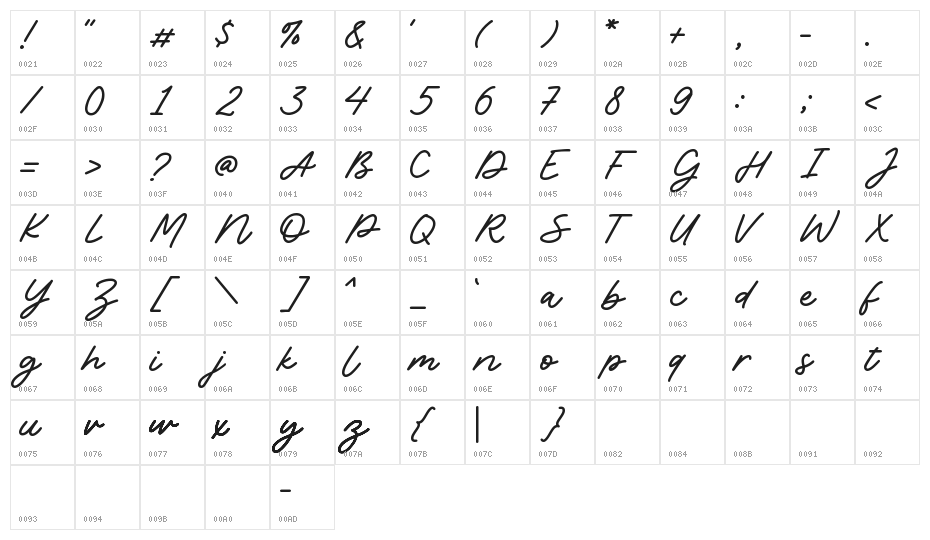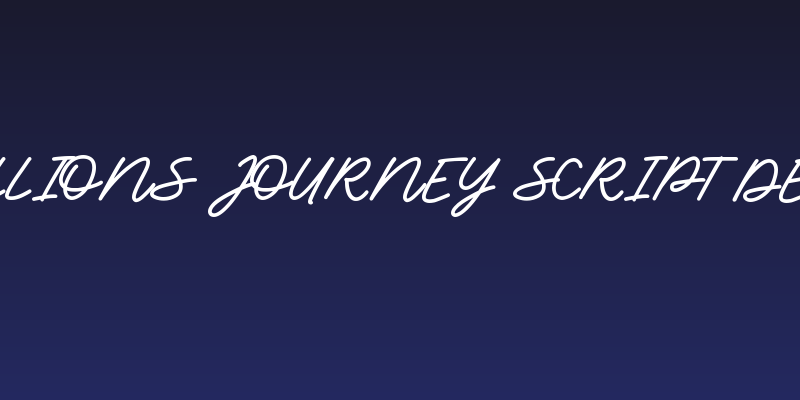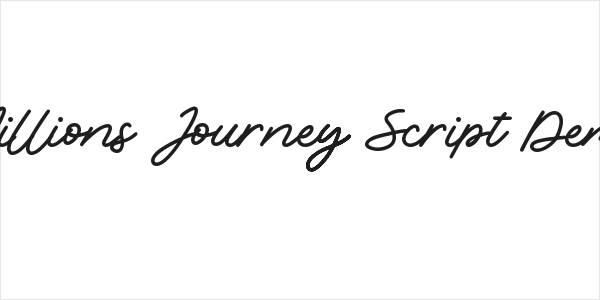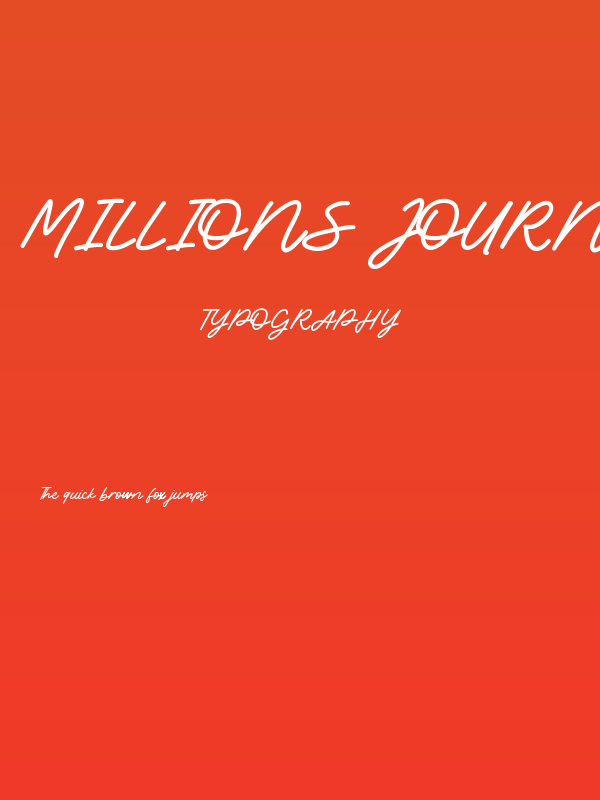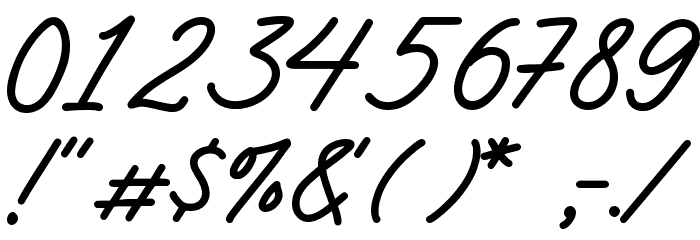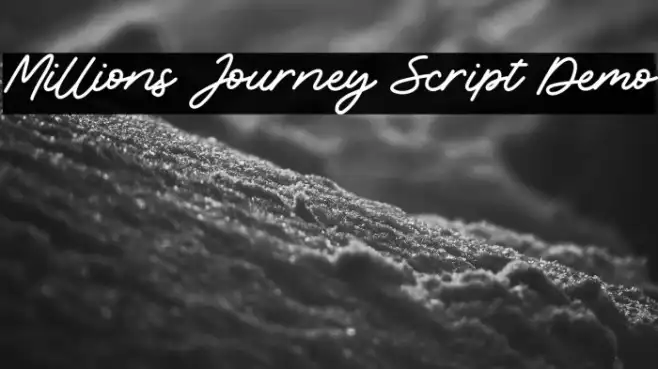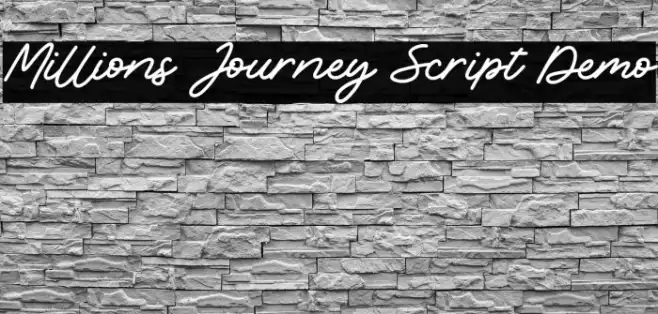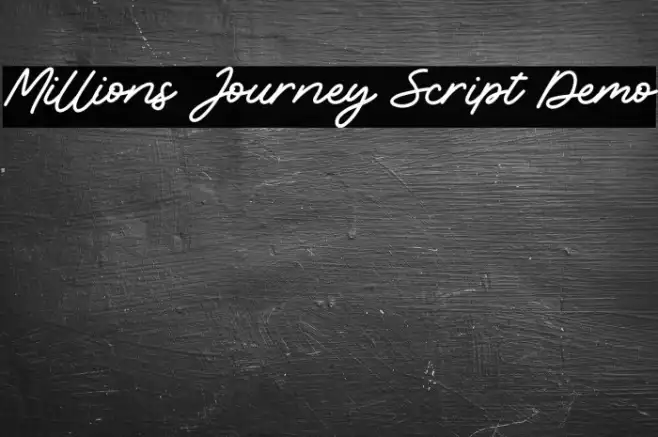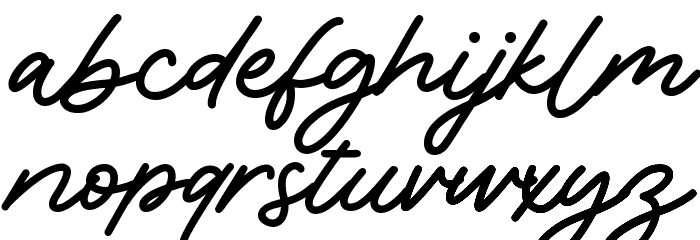
Millions Journey Script Demo Font
Millions Journey Script Demo Description
This script font exudes a sense of elegance and fluidity, characterized by its smooth, flowing lines and cursive style. The uppercase letters are slightly more upright, while the lowercase letters exhibit a more pronounced slant, enhancing the handwritten feel. The numerals and special characters maintain the same fluidity, ensuring consistency across all characters. The strokes are moderately thick, providing a balanced contrast that enhances readability without sacrificing the font's decorative appeal. This font is ideal for projects that require a personal touch, such as invitations, greeting cards, or branding materials that aim to convey sophistication and warmth.
| Proposed Projects | Ideal for wedding invitations, greeting cards, personal branding, and elegant logos. |